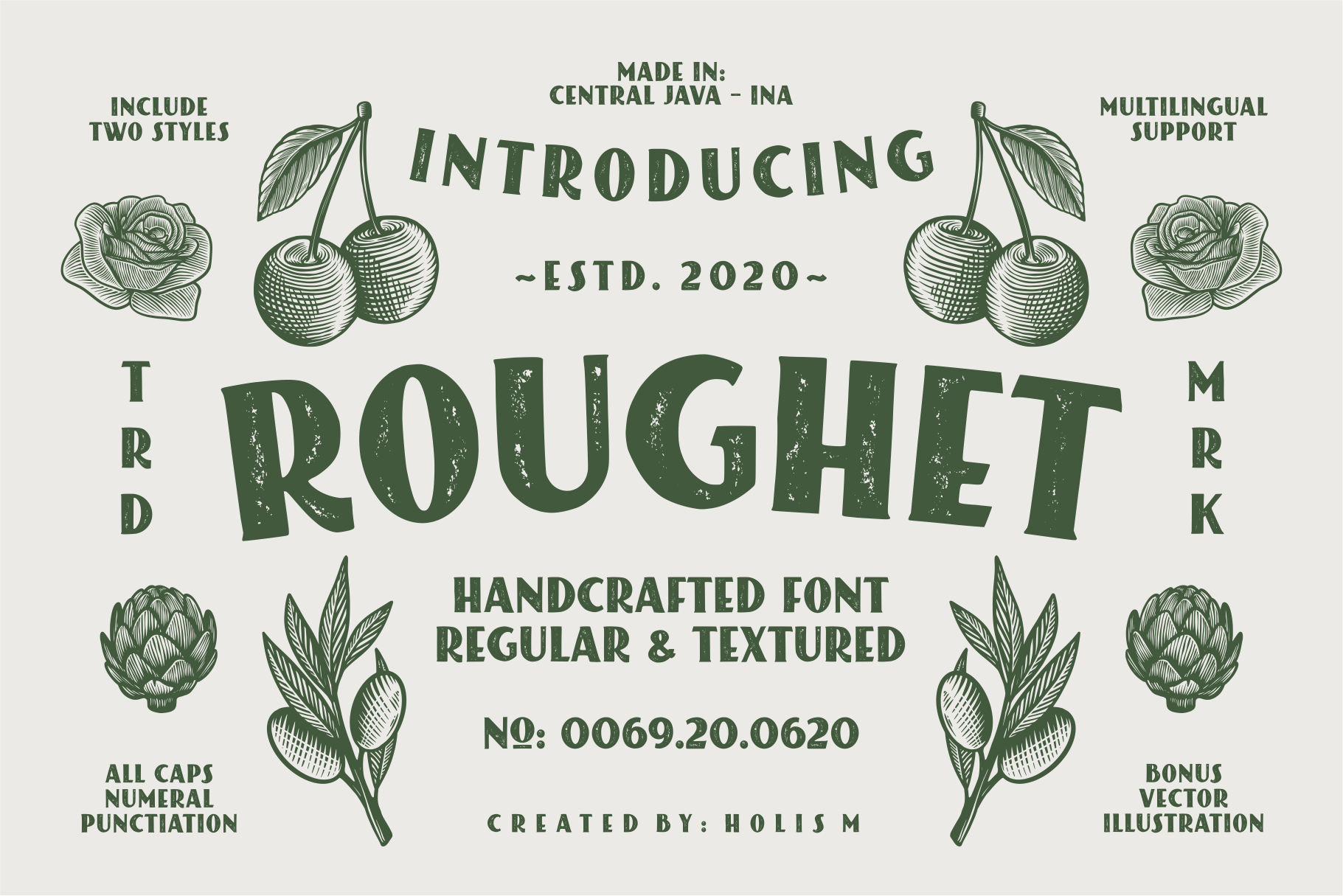
ROUGHET ROUGH TYPEFACE
ROUGHET is a sans serif font with a rugged style aimed at designs with classic and vintage styles. This font is available in 2 styles.
Feature:
Number,
All Caps,
Punctuation,
ÀÁĂÂÅÄÃĄĀÆŒ ĆĈČĊÇ ĎĐ ÈÉĔÊËĘĒĚĖė ĞĜĠĢ ĤĦ ÌÍÎĬÏĨĮĪ Ĵ Ķ ĹĽĻŁĿ ŃÑŇŅŊ ÓÒŎÔÖÕŌŐØ ŔŘŖ ŚŜŠŞẞ ŤŢŦ ÚÙŬÛŮÜŨŲŪŰ Ŵ ÝŶŸ ŹŽŻ